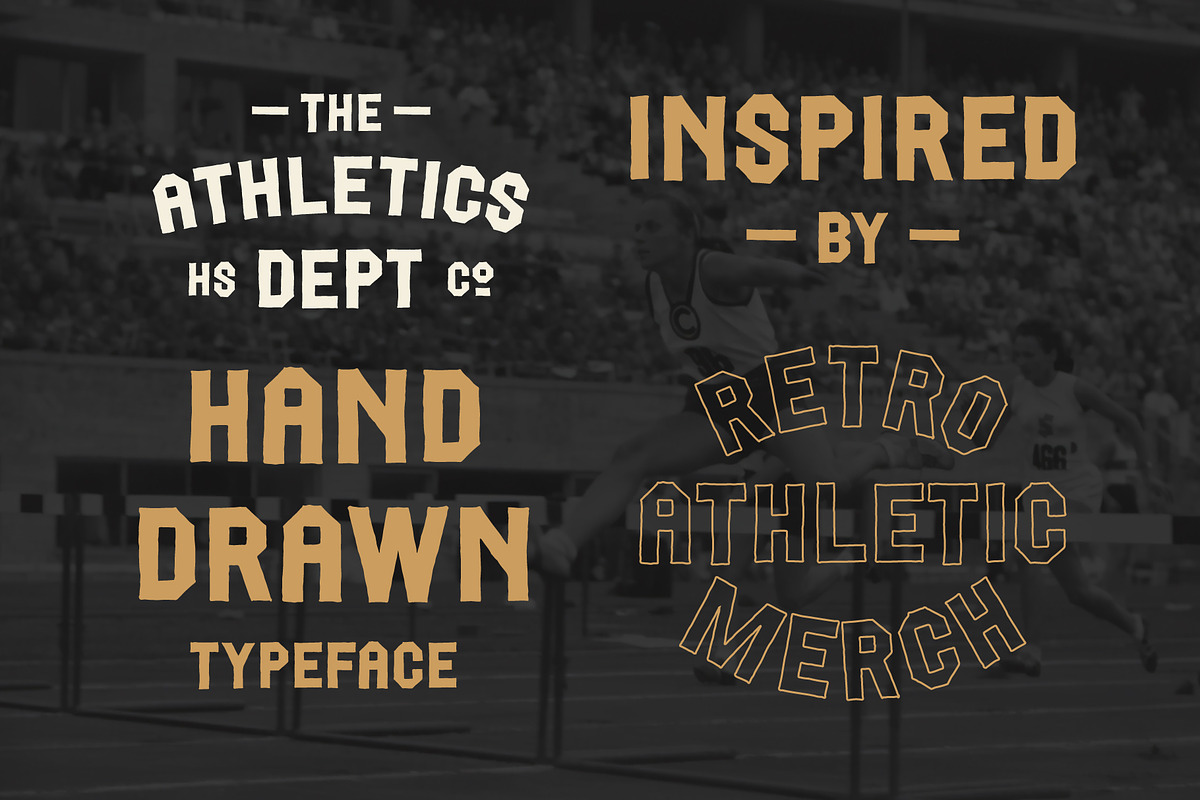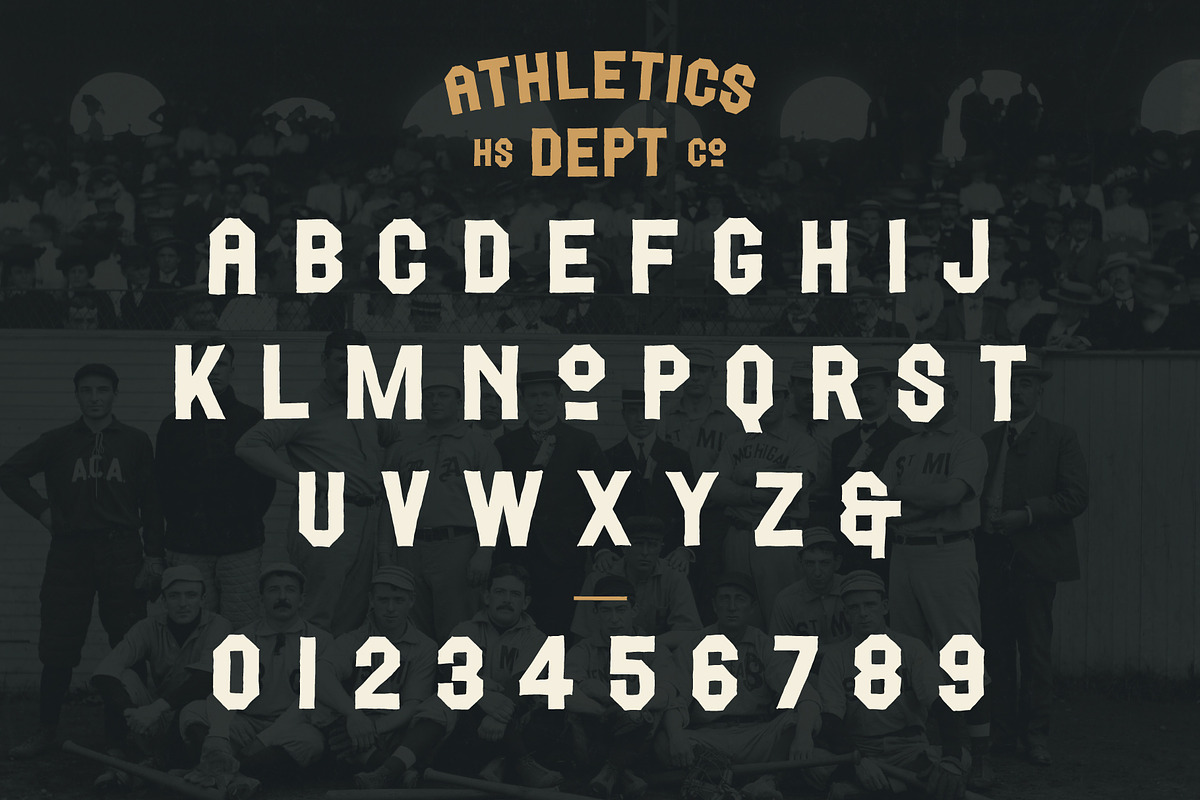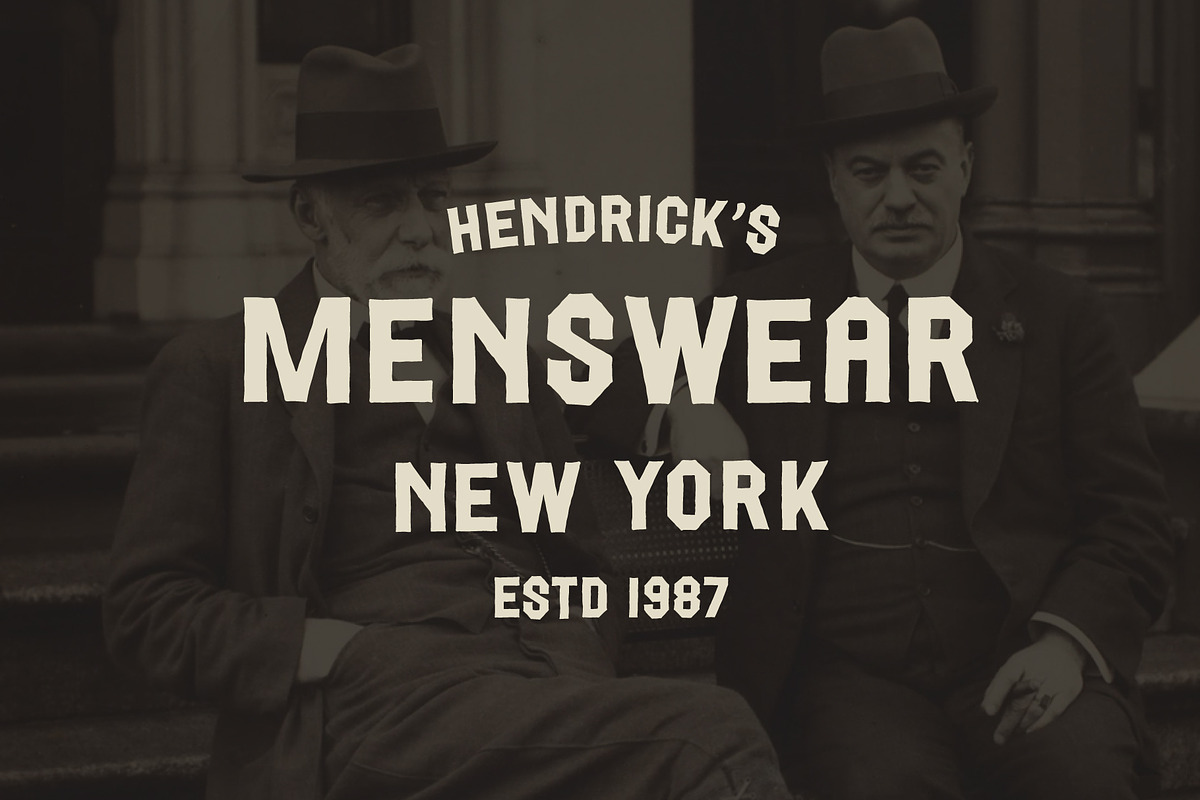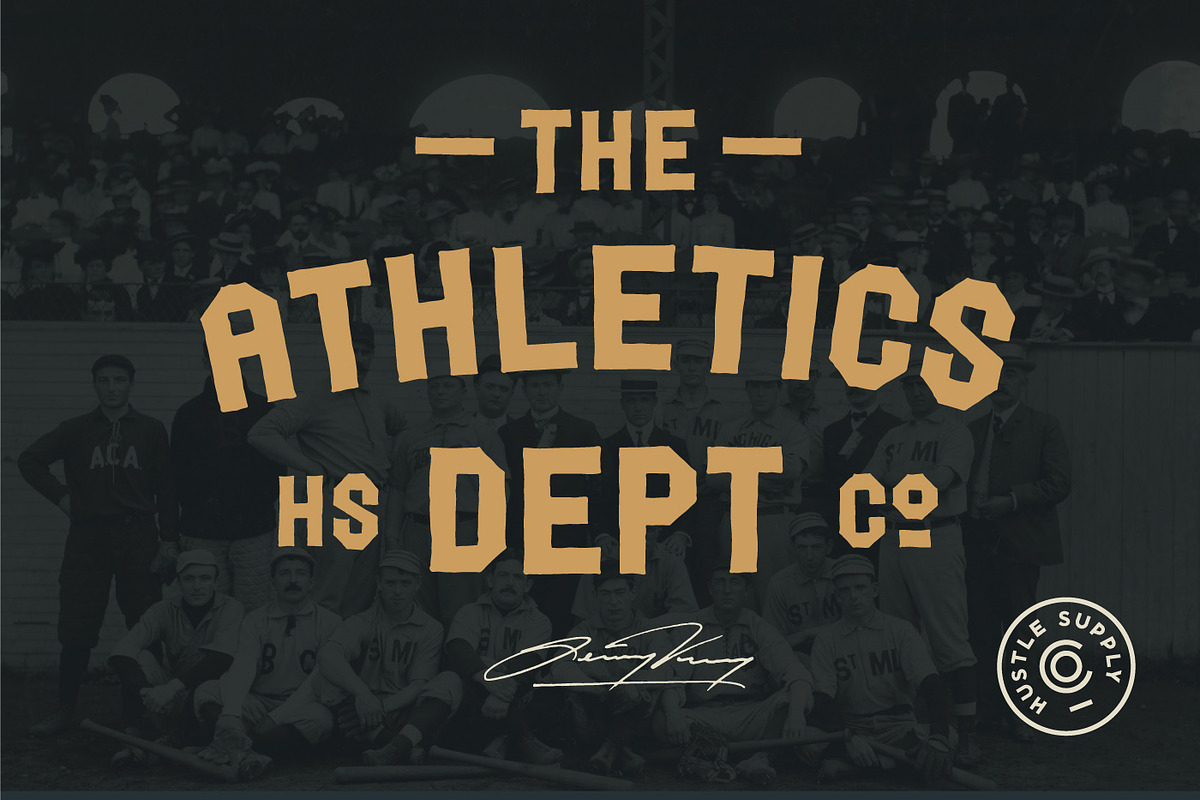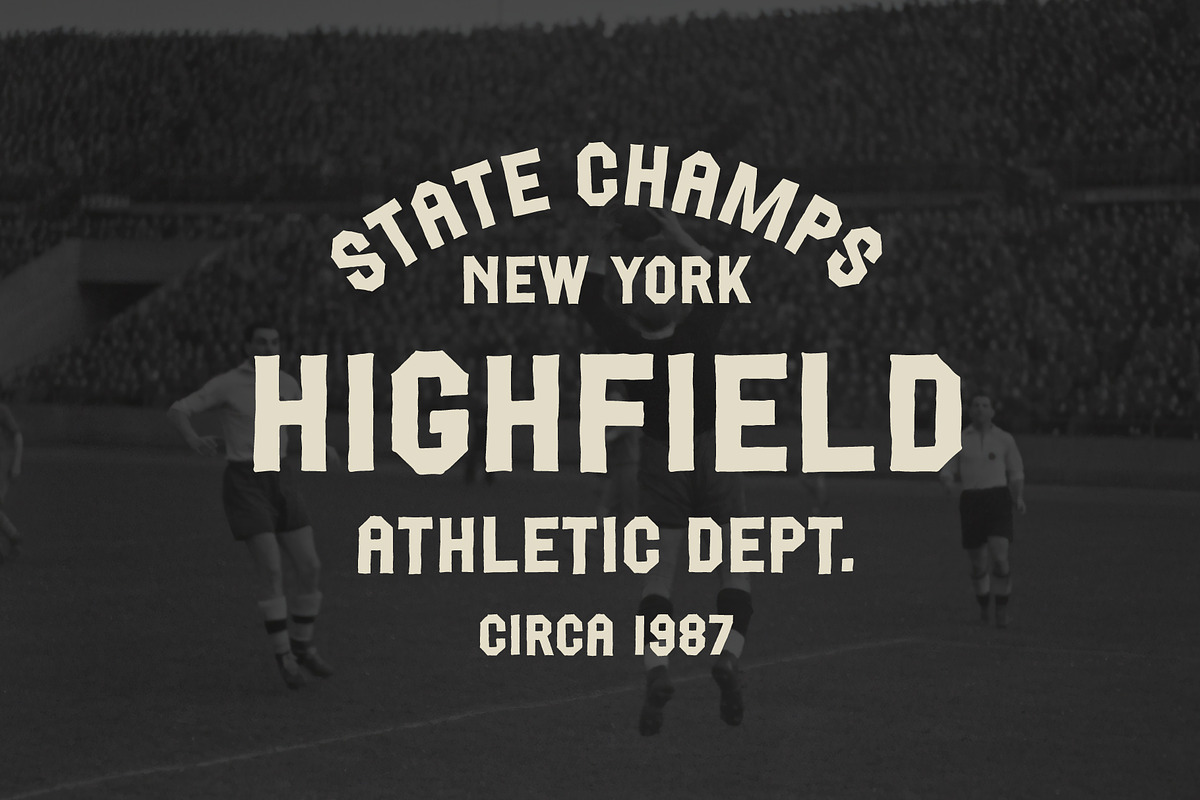
The Athletics Dept - Hand Drawn Font
Athletic Dept
This typeface is a hand drawn, vintage inspired athletic display font. This typeface was drawn on grid paper, scanned and vectorized in illustrator. The roughness and imperfections vary slight for each letter, giving your project an authentically handcrafted look.